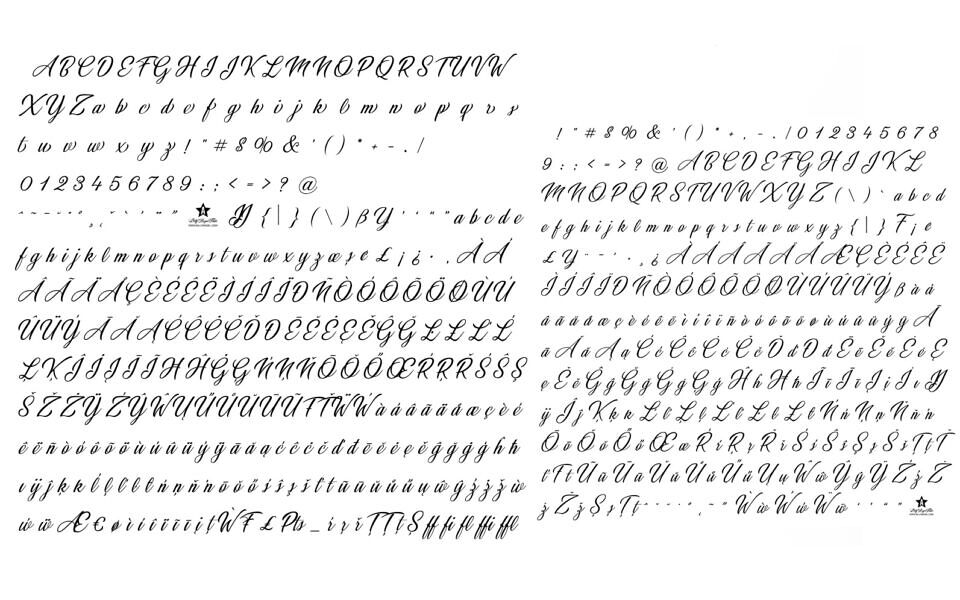
Weddingday is a graceful, handwritten-calligraphy font by Billy Argel. With 290 glyphs and 313 characters, it features elegant swashes and flowing letterforms ideal for wedding invitations, logos, romantic branding, stationery, and headings.